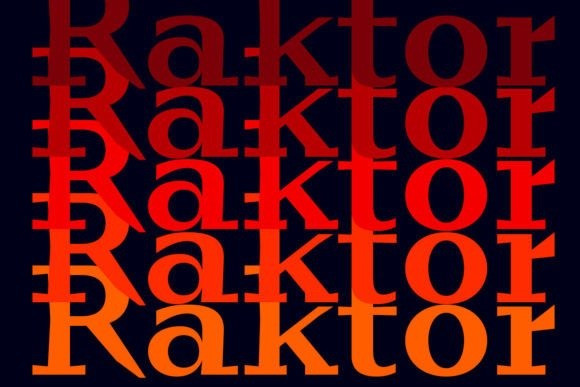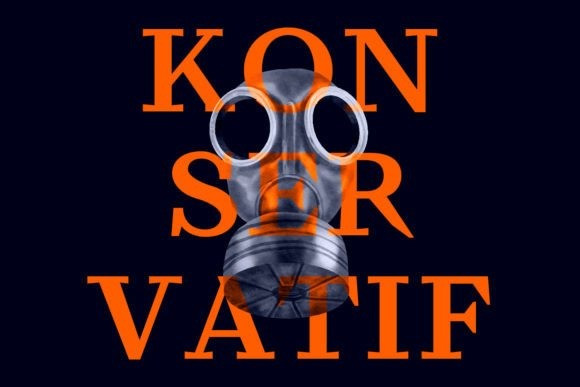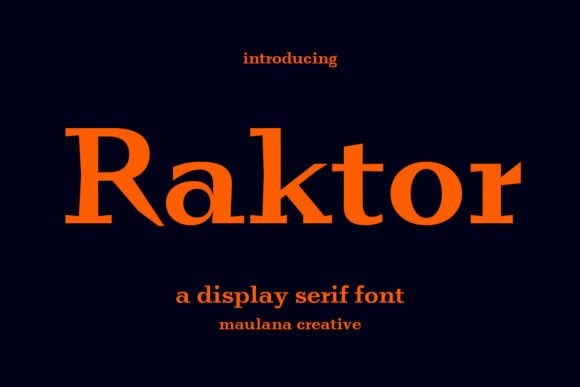
Raktor Font
Raktor Font is a modern and cool serif font.This font is perfect for stickers, retro projects, craft projects, shirts, svg designs, procreate designs, branding, blogs, logos, invitations and more!  Fall in love with it and bring your projects to the highest levels!